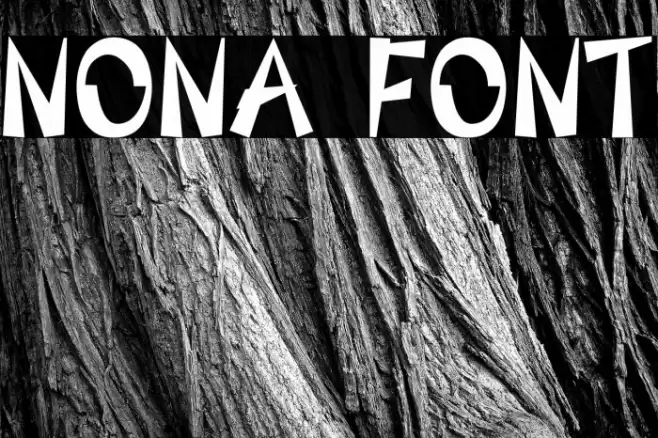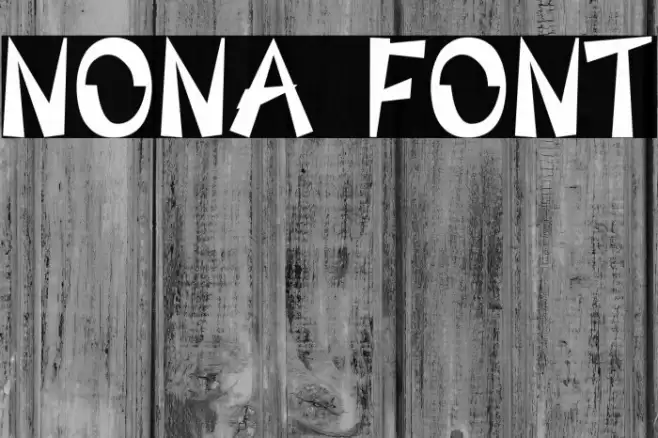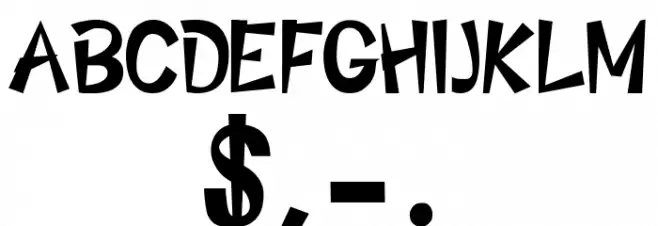
NONA Font
NONA Description
This font features a bold and playful design with exaggerated, angular strokes that give it a dynamic and energetic appearance. The letters are slightly irregular, adding a whimsical touch that makes it stand out. The uppercase letters are particularly striking with their sharp edges and varying line thicknesses, creating a sense of movement and excitement. The lowercase letters maintain the same playful style, ensuring consistency throughout the typeface. The numbers and special characters are designed to match the overall aesthetic, making this font versatile for various creative projects.
A bold, playful font with angular strokes and a dynamic, whimsical style from Regular fonts.
- Proposed Projects: Ideal for comic books, children's books, playful branding, posters, and creative advertising.
- Overall Style: Playful, Energetic, Whimsical
- Use Case: Headlines, Posters, Branding